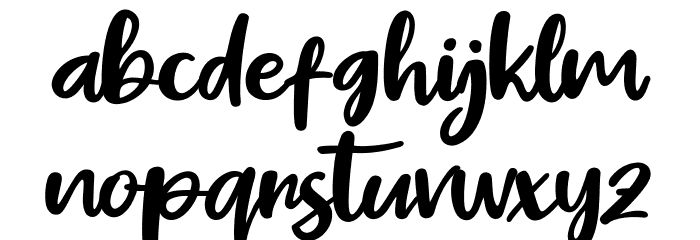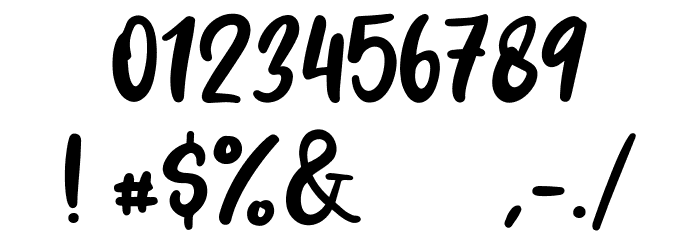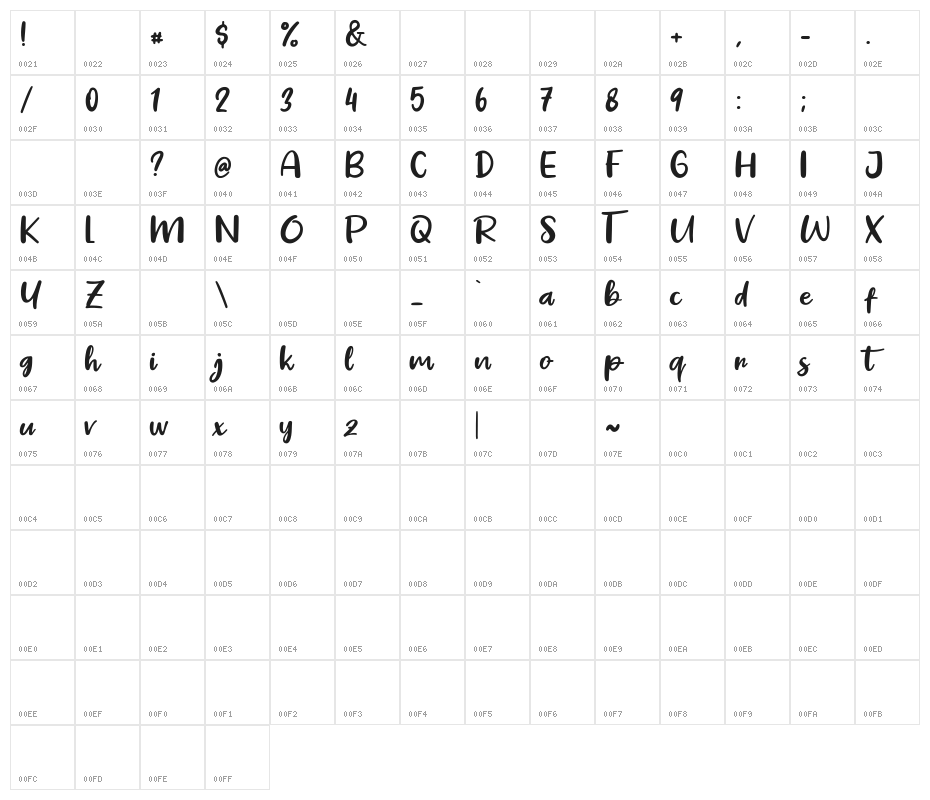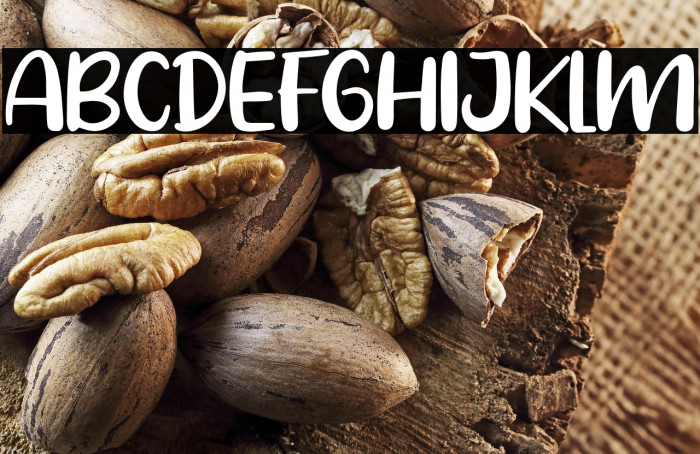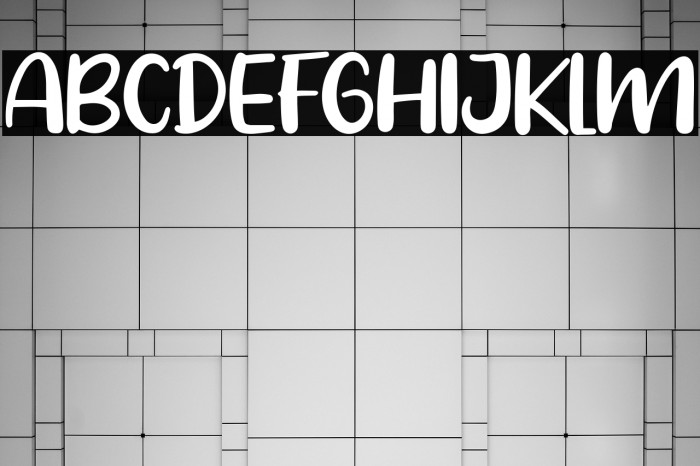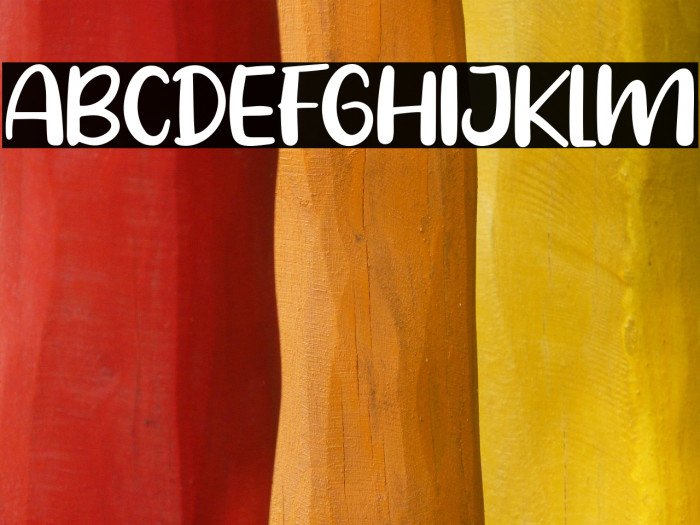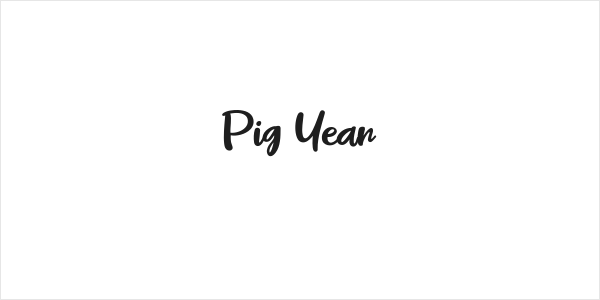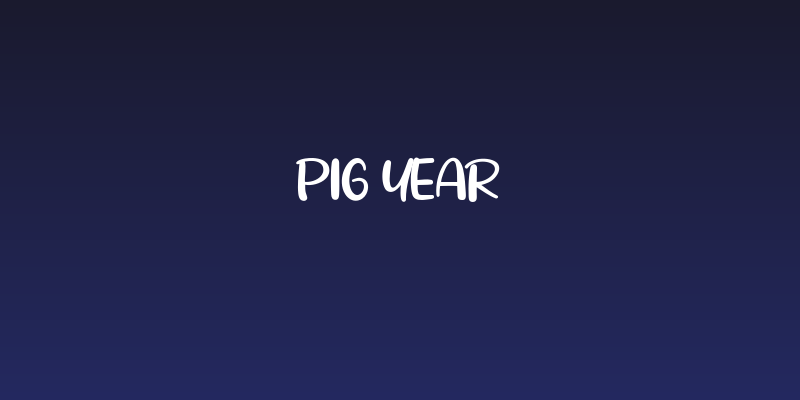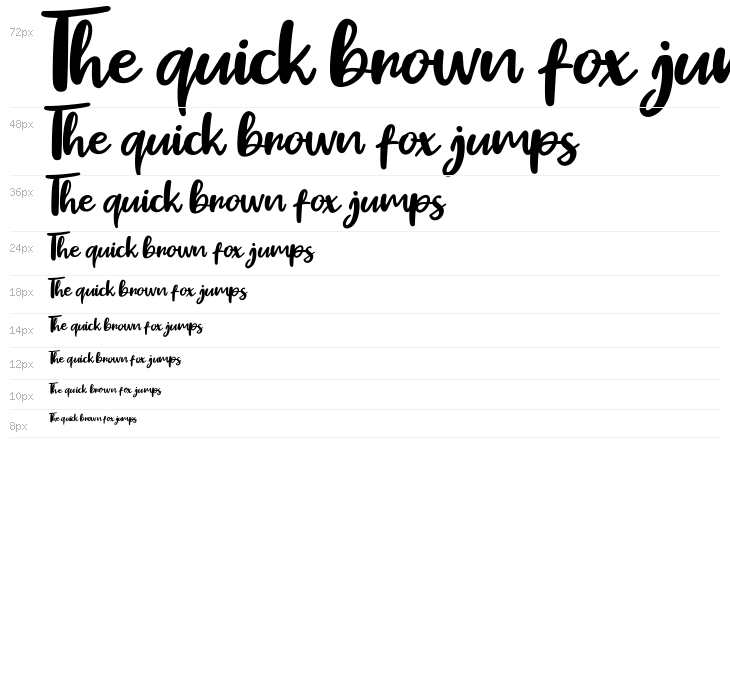
Pig Year Font
This font features a playful and energetic script style with bold, rounded strokes that give it a lively and friendly appearance. The uppercase letters are slightly more structured, while the lowercase letters exhibit a more fluid and cursive nature, adding to its dynamic feel. The numerals and special characters maintain the same boldness, ensuring consistency across all characters. This font's thick strokes and rounded edges make it highly legible, even at smaller sizes, while its whimsical style adds a touch of fun and personality.
A playful, bold script font with rounded strokes and a lively appearance.
- Font: Pig Year
- Proposed Projects: Ideal for greeting cards, playful branding, children's books, and social media graphics.